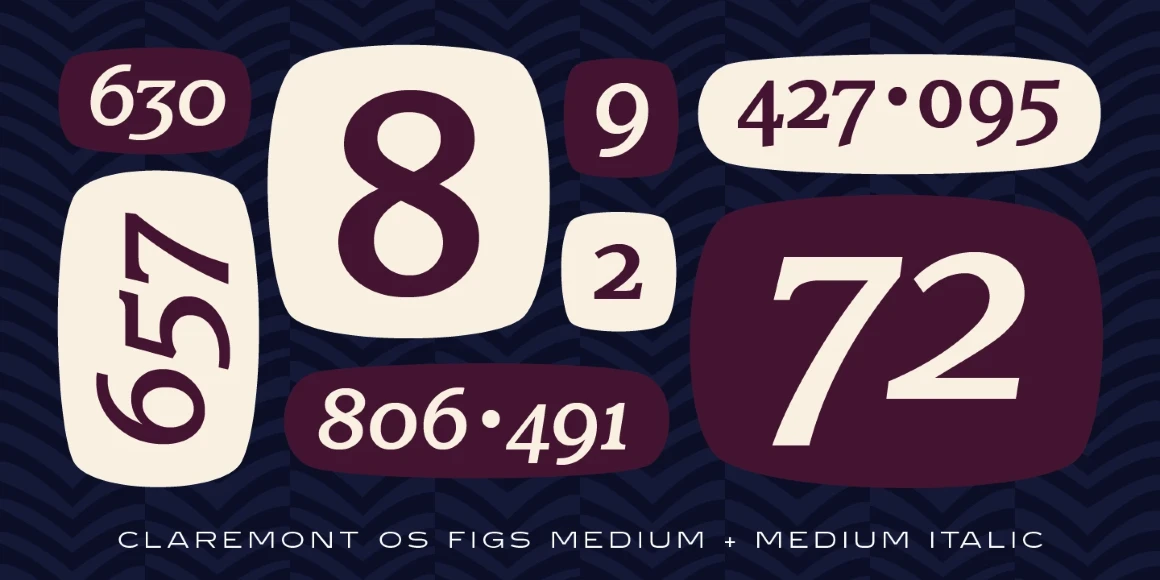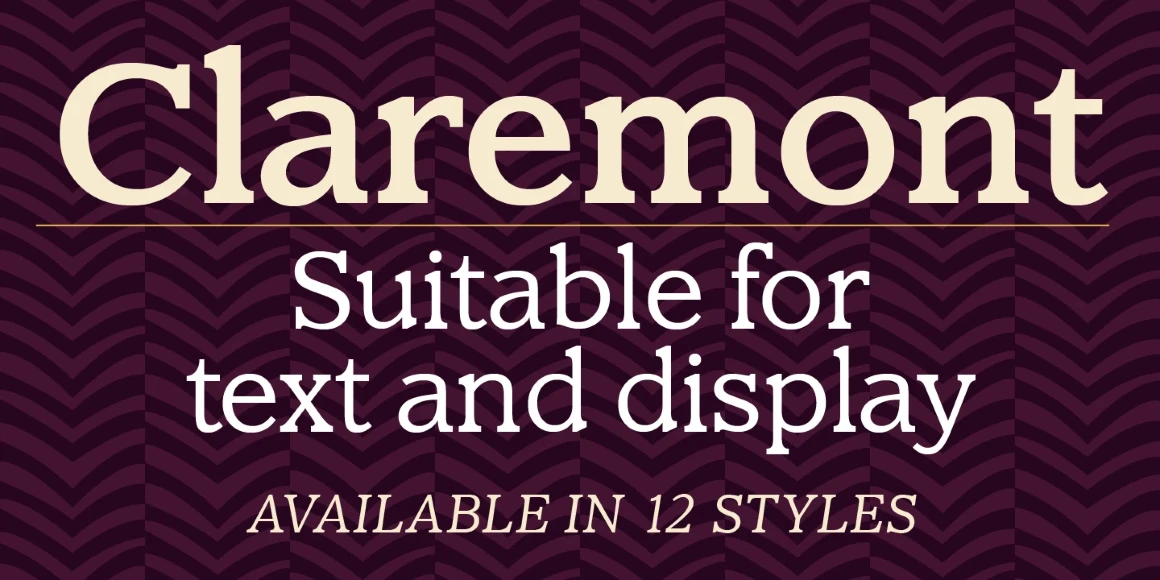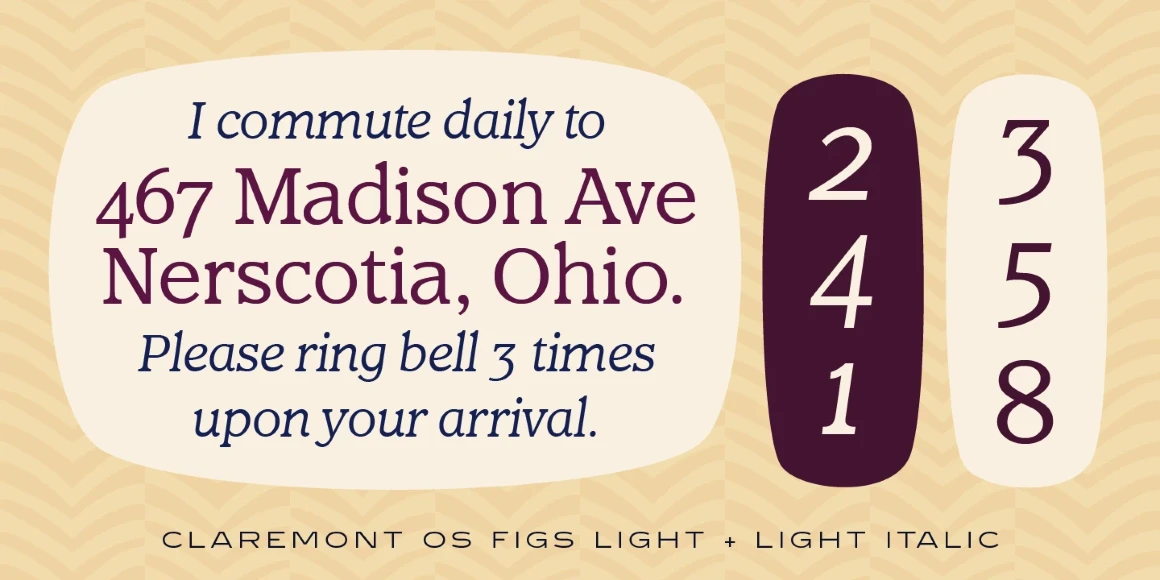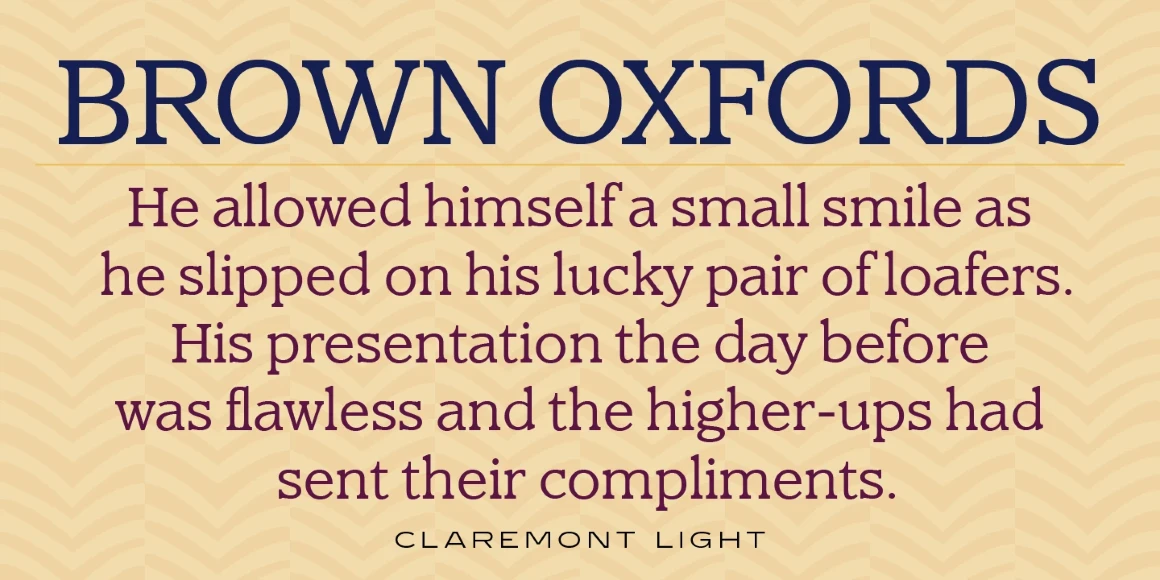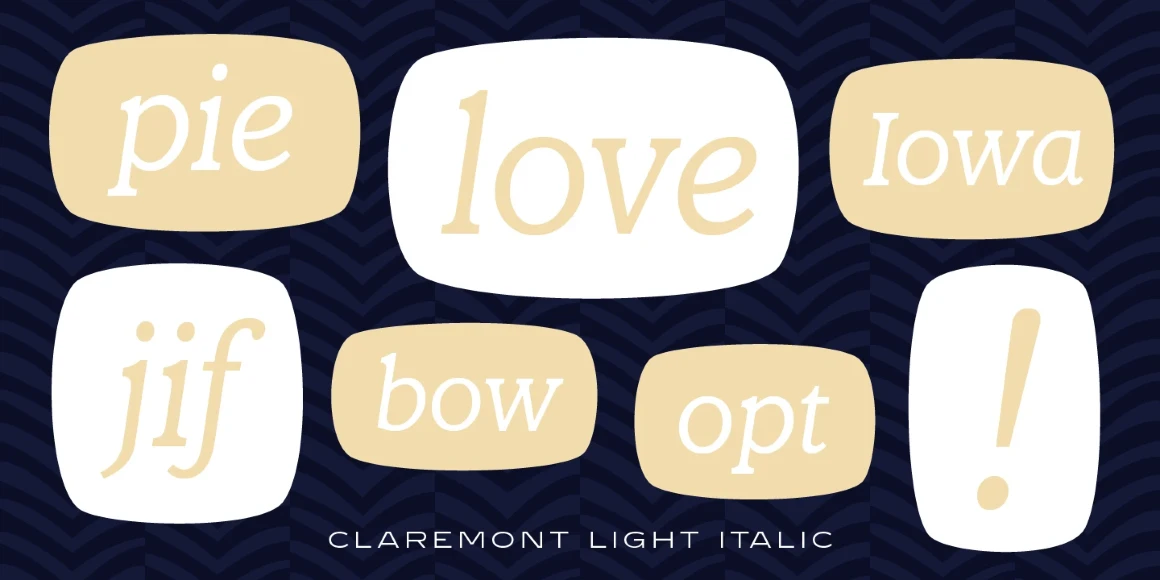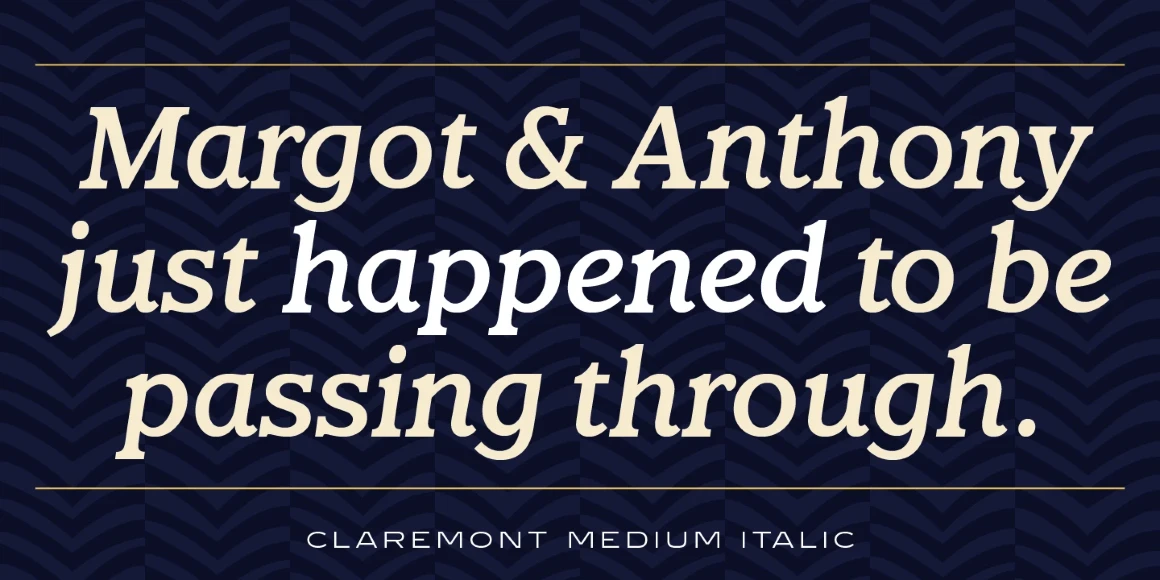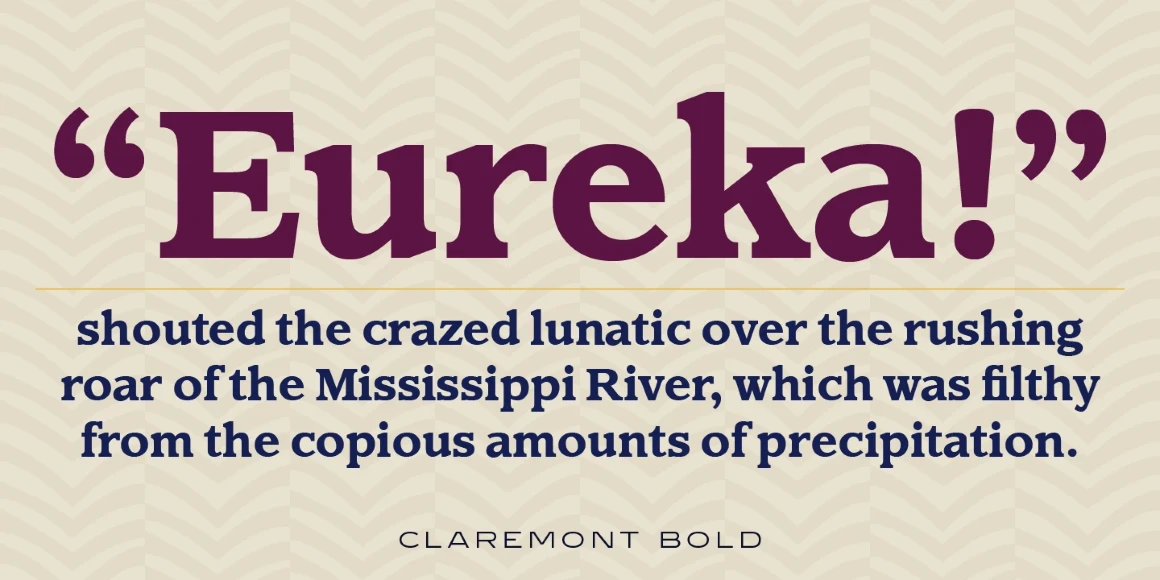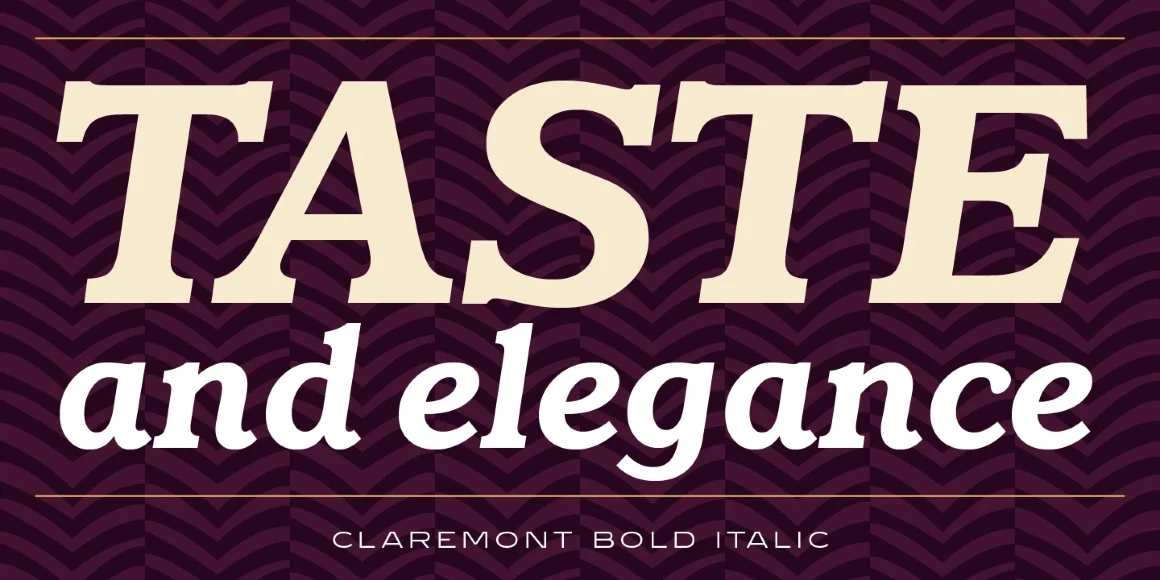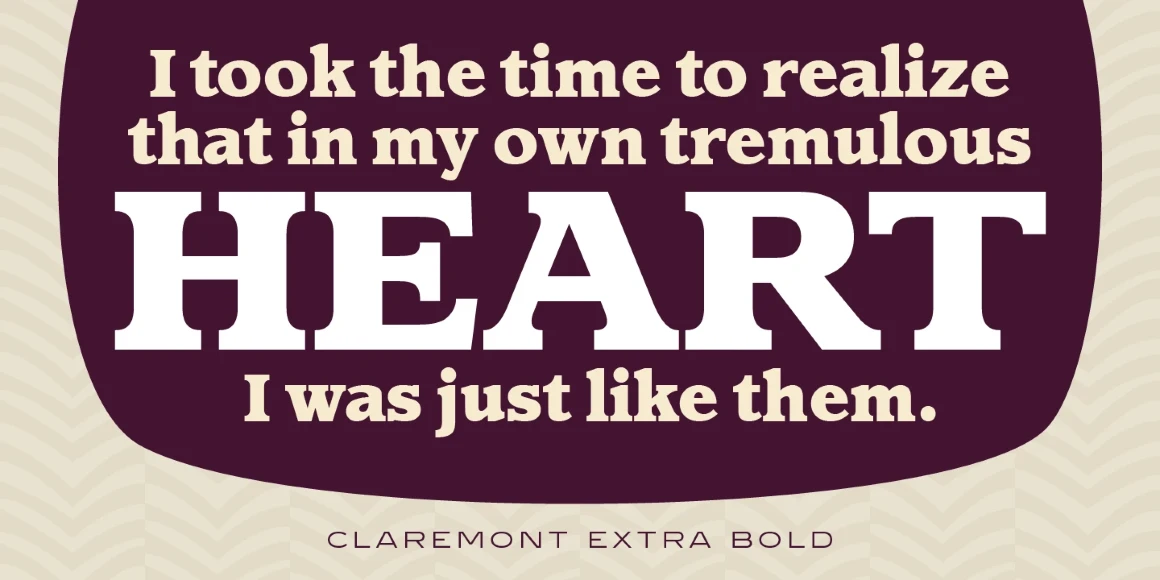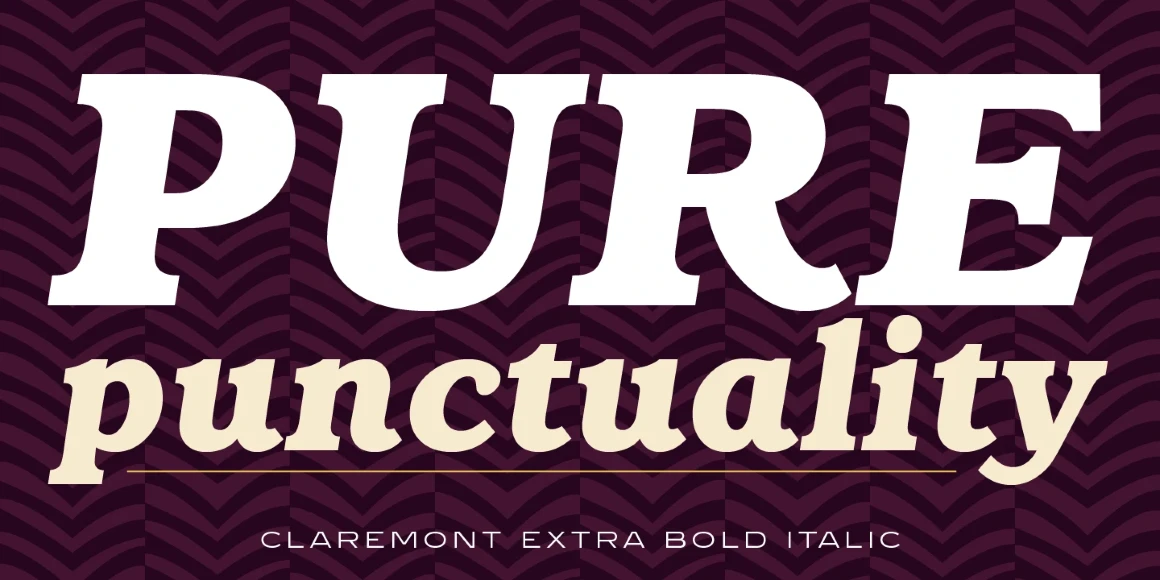
Claremont
Claremont is a serif font family designed by Les Usherwood (Typsettra). Usherwood originally created four weights – a light, extra bold, light italic, and extra bold italic. Paul Hickson (P&P Hickson) and Steve Jackaman (ITF) digitized the family and created eight new weights, and it was released exclusively for the Red Rooster Collection in 1993. Claremont shares similarities to Bookman Old Style, but also shares properties with slab serif Egyptian-style typefaces. Like all Usherwood typefaces, the family was engineered with great care for maximum legibility and aesthetics.